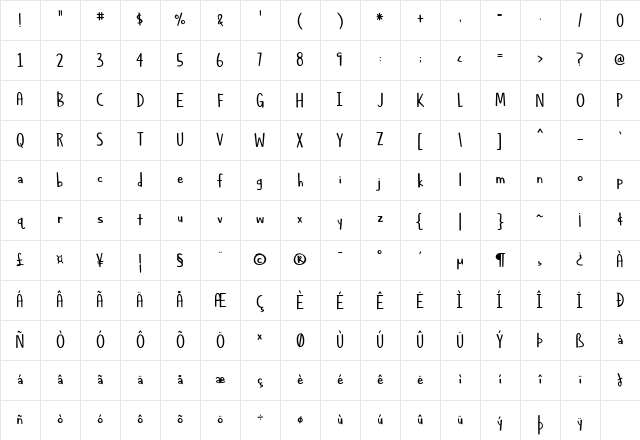
Complete Alphabetized Cassette Tapes Regular glyph index. Displaying only characters natively supported by Alphabetized Cassette Tapes Regular font.
Alphabetized Cassette Tapes is a composed and adaptable typeface that performs quietly and consistently across a wide range of design contexts.